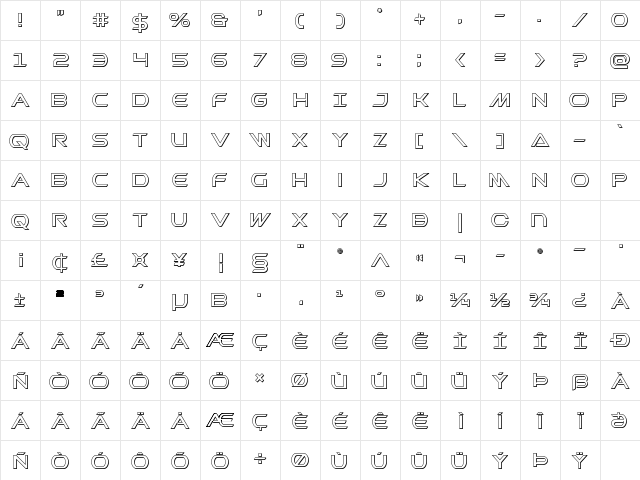
Promethean Outline Free Font
Promethean Outline Outline
Style: Outline
Design Context for Promethean Outline
Promethean Outline is built around its visual character rather than neutral utility - its distinctive forms are designed to make an impression at display sizes.
Font Pairing: Pair with a clean neutral sans-serif for body copy to let Promethean Outline's character lead without overwhelming the composition.
Pro Tip: Use Promethean Outline exclusively at display sizes - it was designed to be seen, not read at length. Let a neutral companion handle body copy.